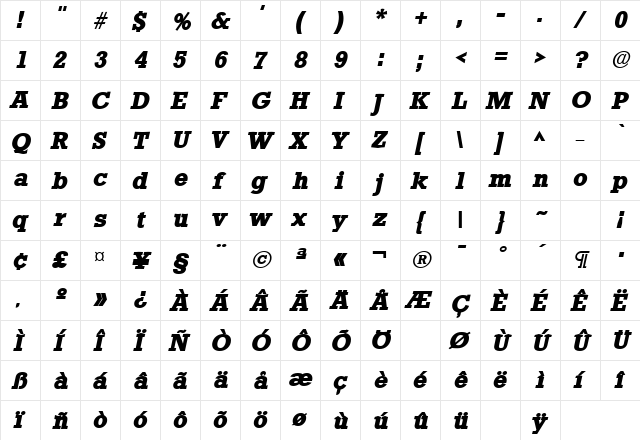
StaffordLH Bold Italic
Design Context for StaffordLH Typeface
StaffordLH takes a measured approach to typography — its balanced proportions and neutral character make it a reliable workhorse for both digital and print work. Its italic angle brings a sense of urgency and motion to the letterforms. Its bold stroke weight gives it real presence on the page.
Pro Tip: Use StaffordLH for emphasis, pull quotes, and subheadings where its slanted energy can add rhythm to the layout.